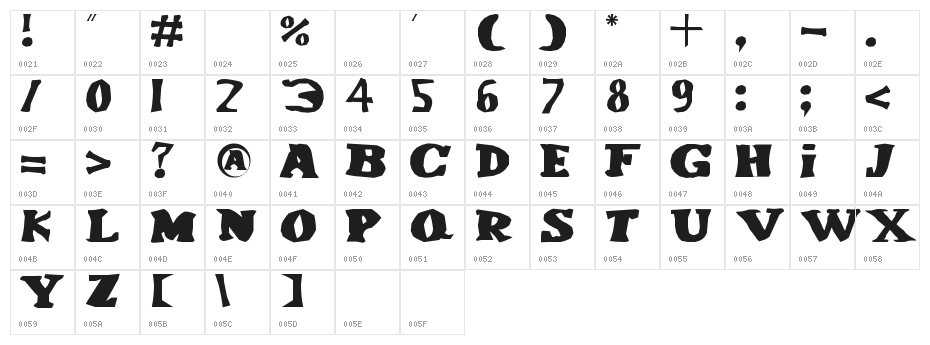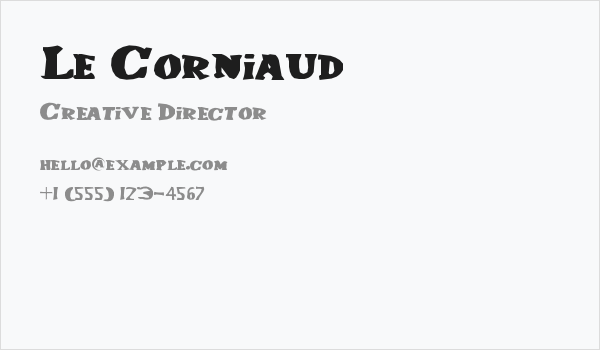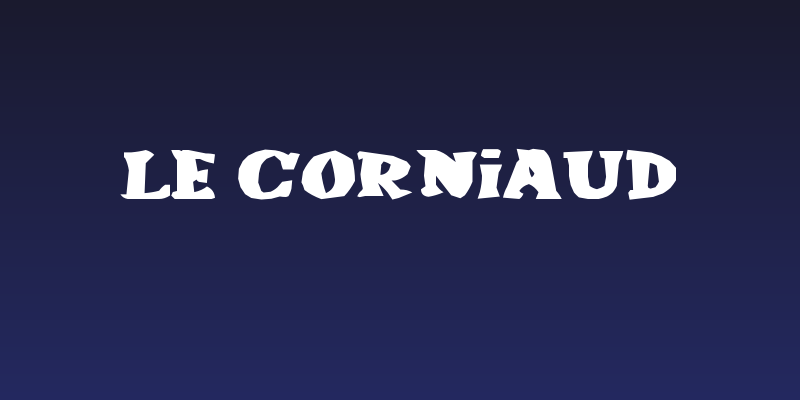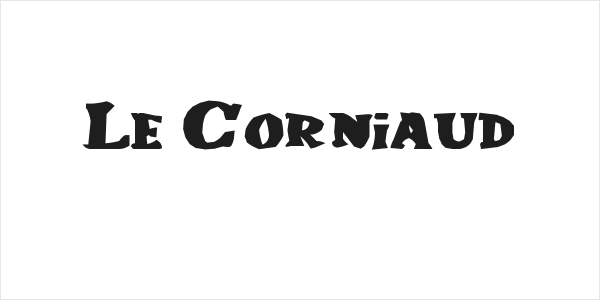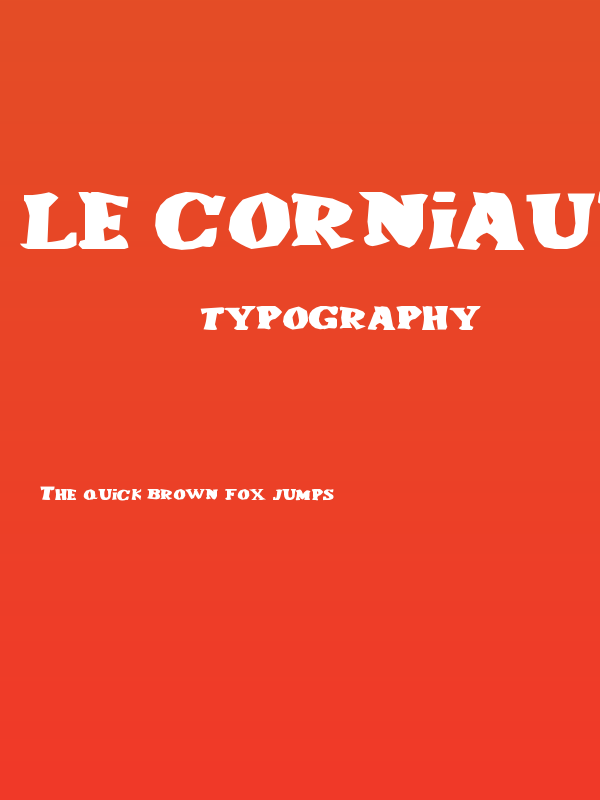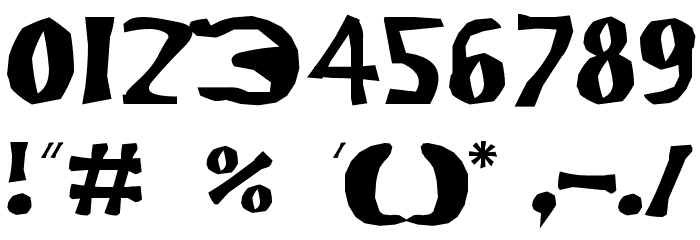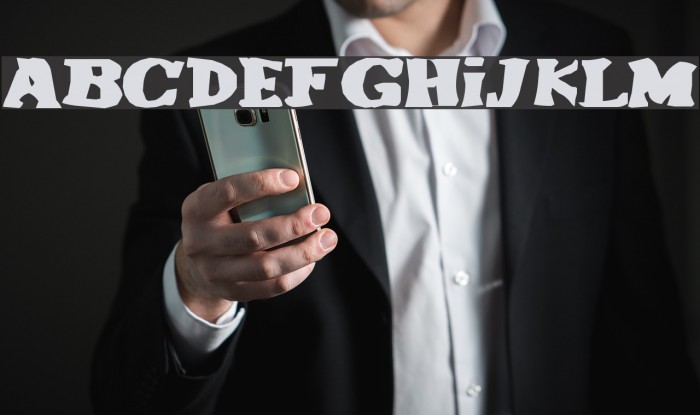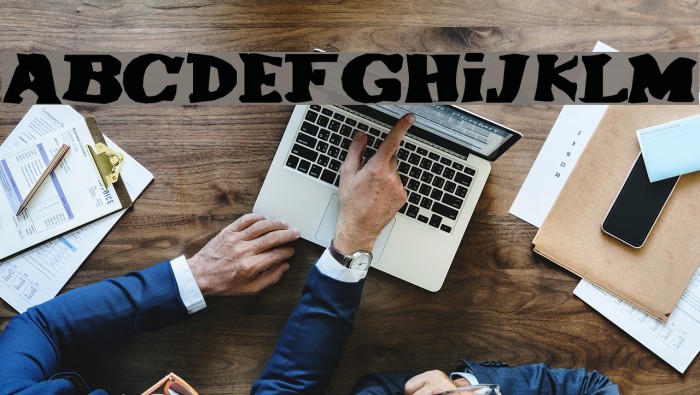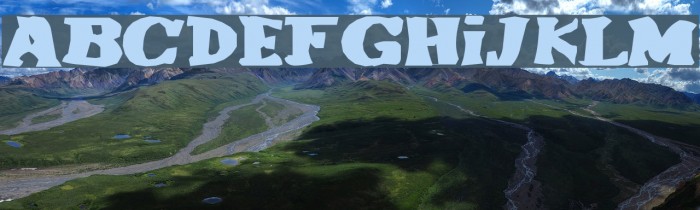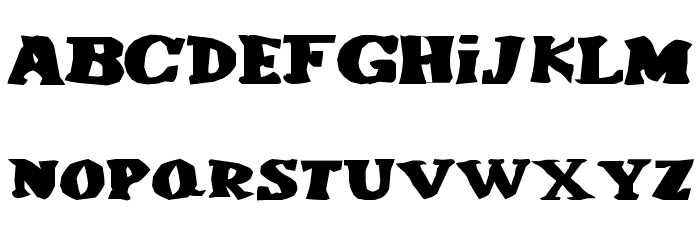
Le Corniaud Font
This font features a bold and dynamic style with a playful, hand-drawn appearance. The characters are thick and slightly irregular, giving them a lively and energetic feel. The uppercase and lowercase letters maintain a consistent weight, while the numbers and special characters follow the same bold aesthetic. The font's unique character shapes and uneven edges contribute to its distinctive look, making it stand out in any design. Its artistic flair is perfect for projects that require a touch of creativity and individuality.
| Overall Style | Playful, Artistic |
| Proposed Projects | Ideal for posters, logos, children's books, and creative branding projects. |